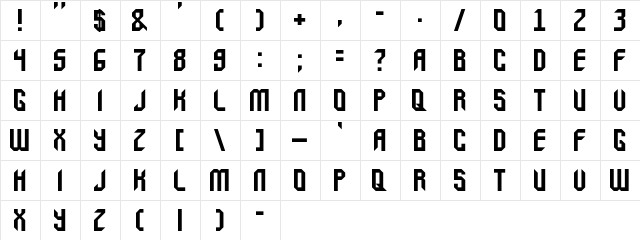
Balox Regular
| Designer | Upansulfan |
Design Context for Balox Typeface
Balox takes a measured approach to typography — its balanced proportions and neutral character make it a reliable workhorse for both digital and print work.